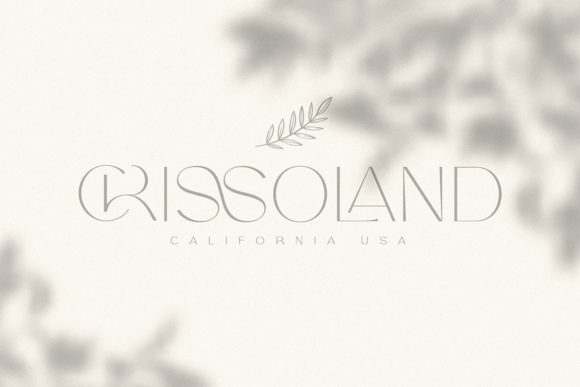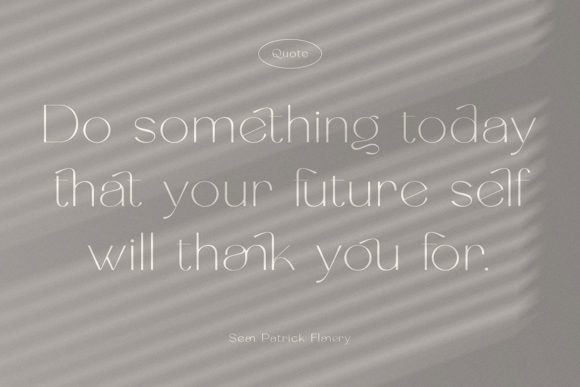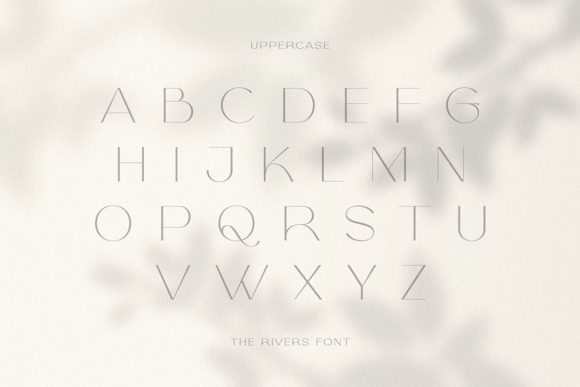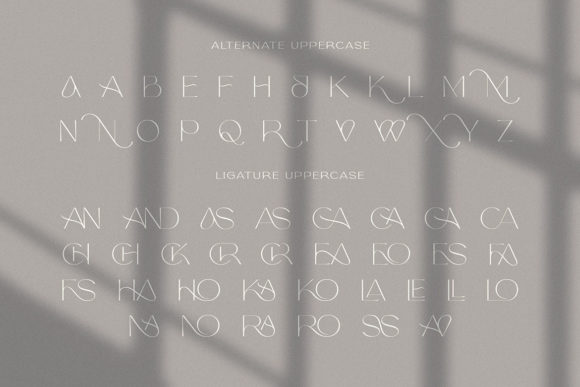
The Rivers Font
The Rivers is a thin lettered and elegant sans serif font. Stylish and distinct, this font will elevate each of your creations. The Rivers is PUA encoded which means you can access all of the glyphs and swashes with ease!